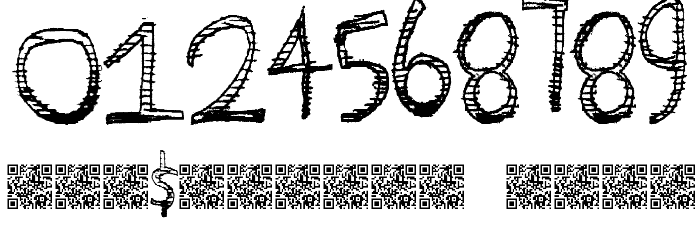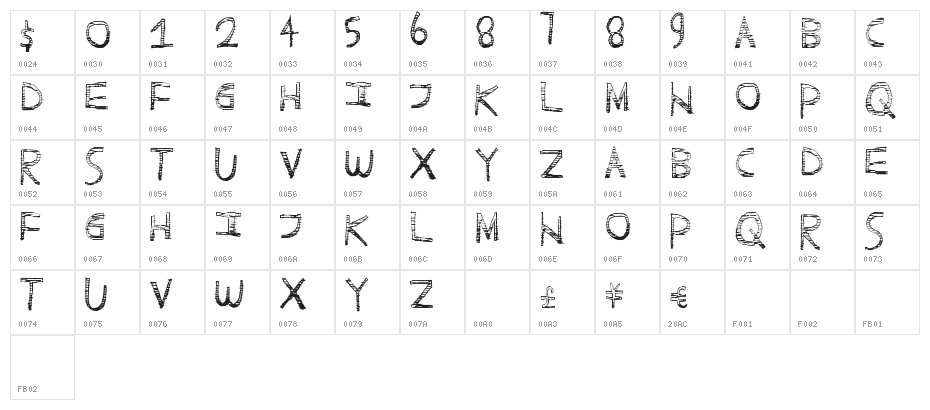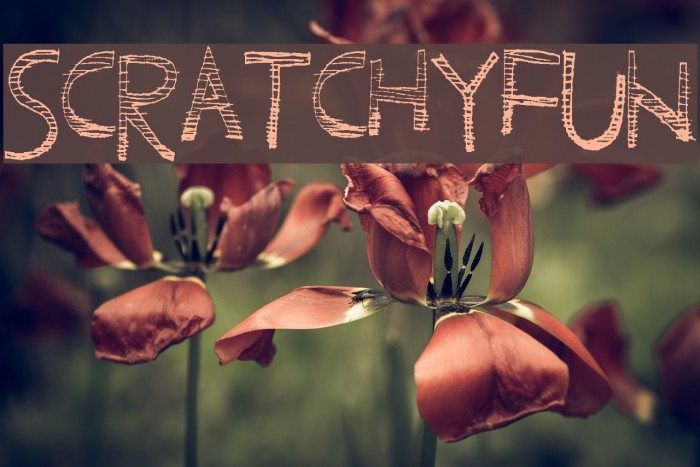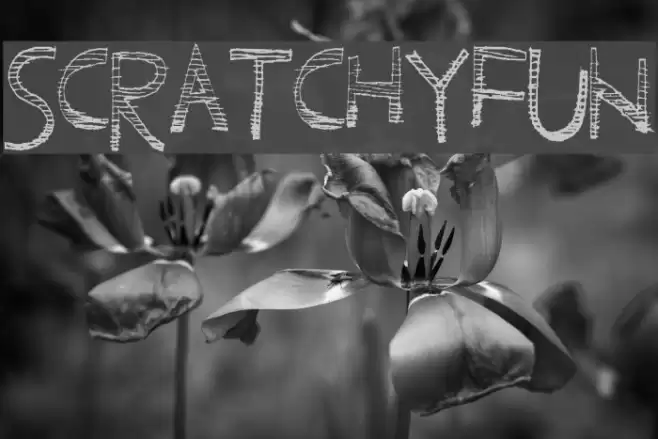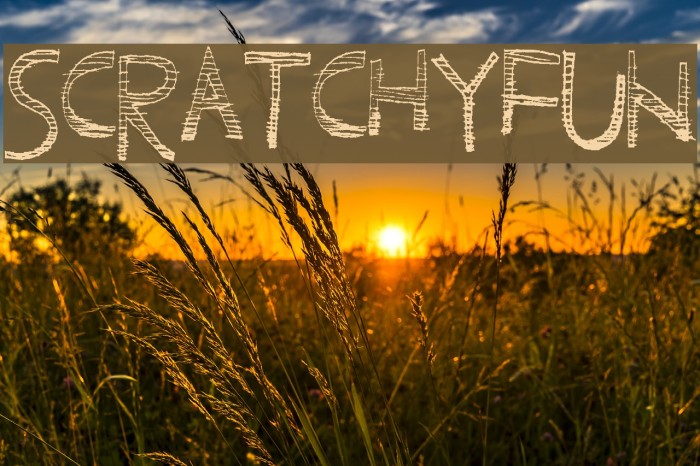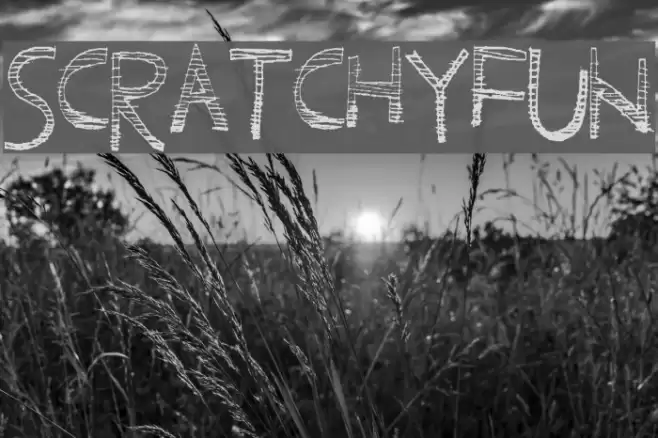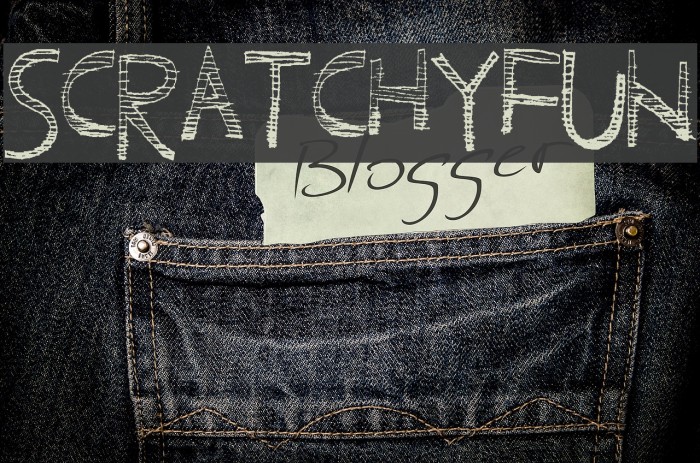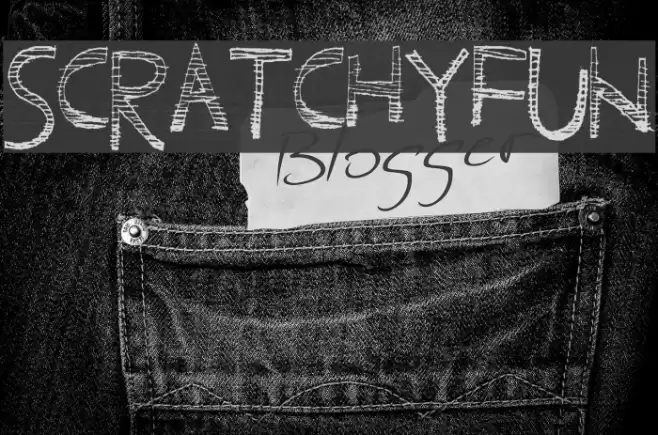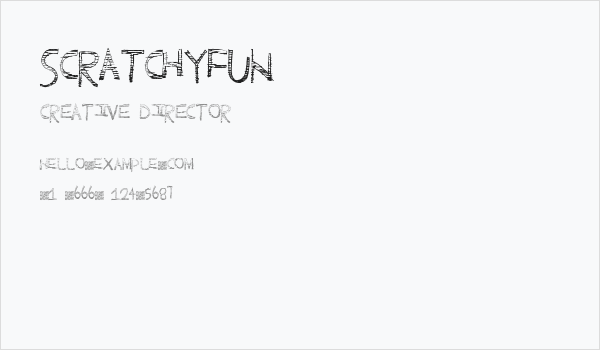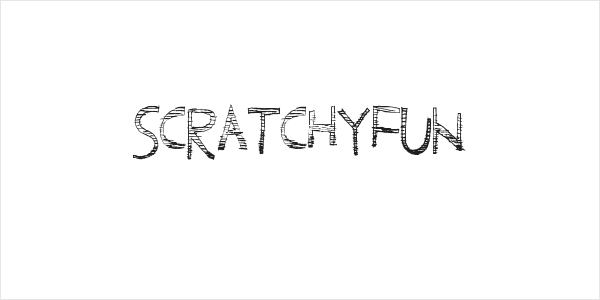
ScratchyFun Font
ScratchyFun Description
This font features a playful and hand-drawn style, characterized by its scratchy, uneven lines that give it a textured and dynamic appearance. The letters are slightly irregular, adding to the whimsical and informal feel. Each character appears as if it has been sketched with a pen, with varying line thicknesses that create a sense of movement and energy. The font maintains legibility while offering a unique and artistic flair, making it suitable for creative projects that require a touch of personality and fun.